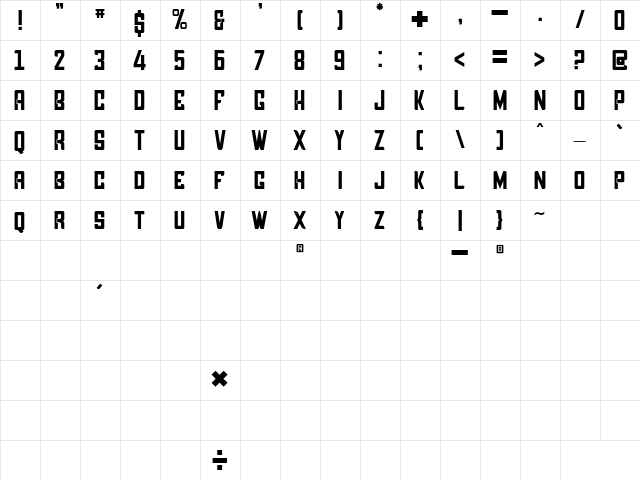
BRONSHONA_1 Regular Font Preview
BRONSHONA_1 Regular
Design Context for BRONSHONA_1 Typeface
BRONSHONA_1 takes a measured approach to typography — its balanced proportions and neutral character make it a reliable workhorse for both digital and print work.